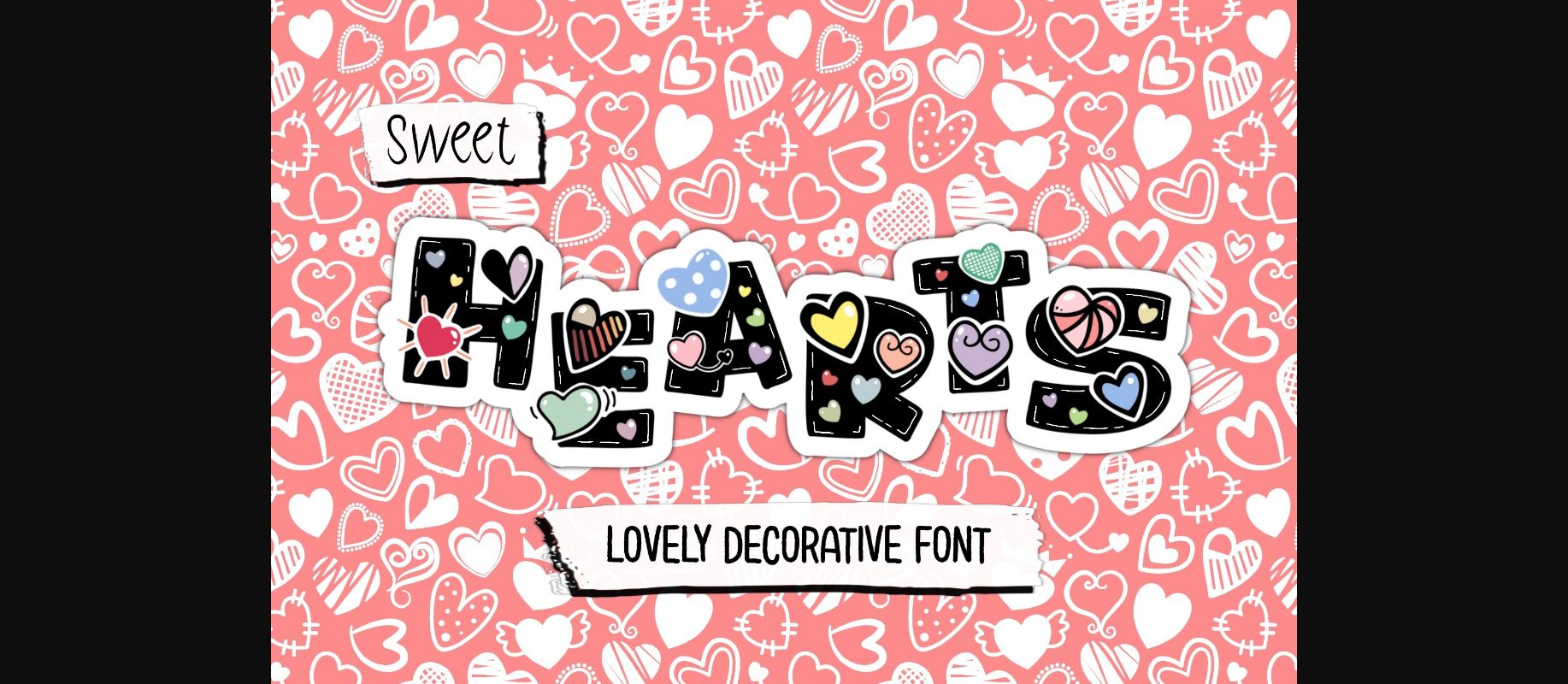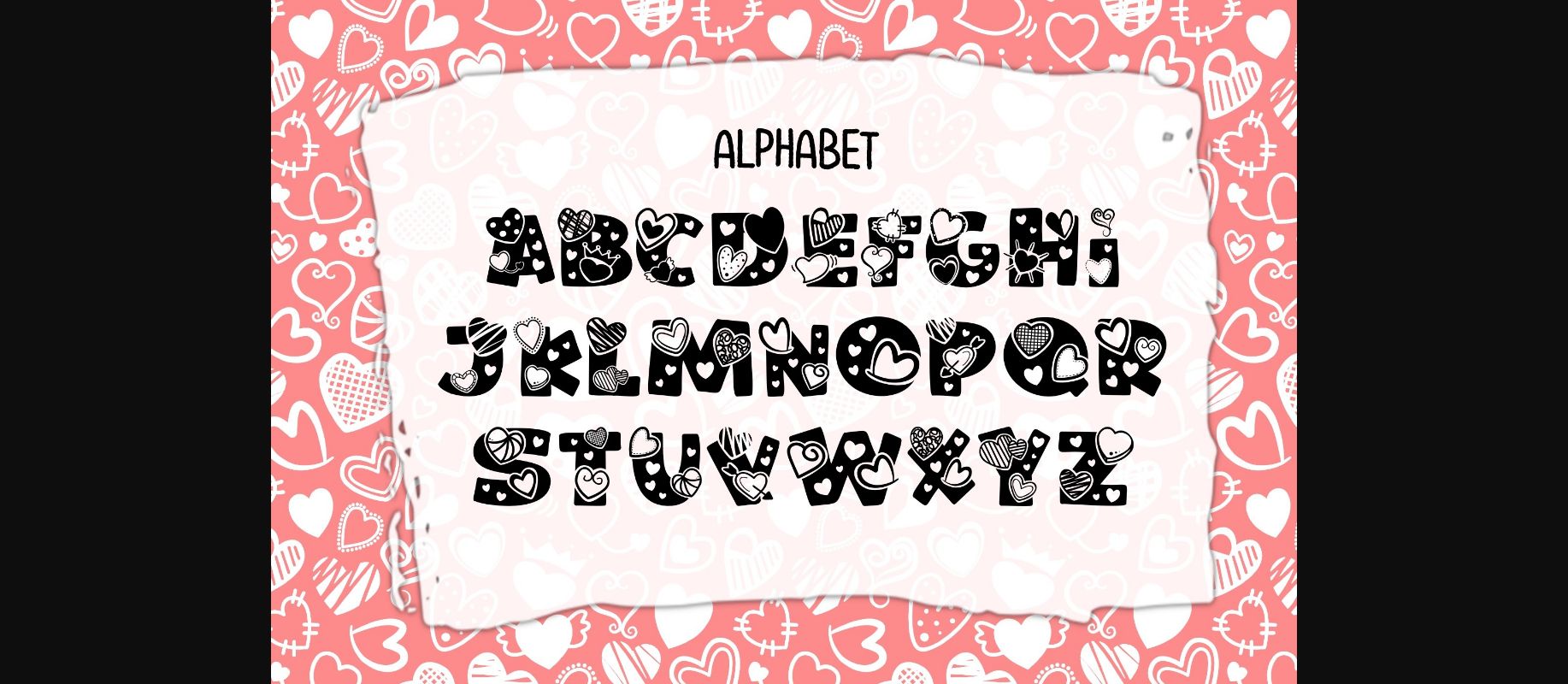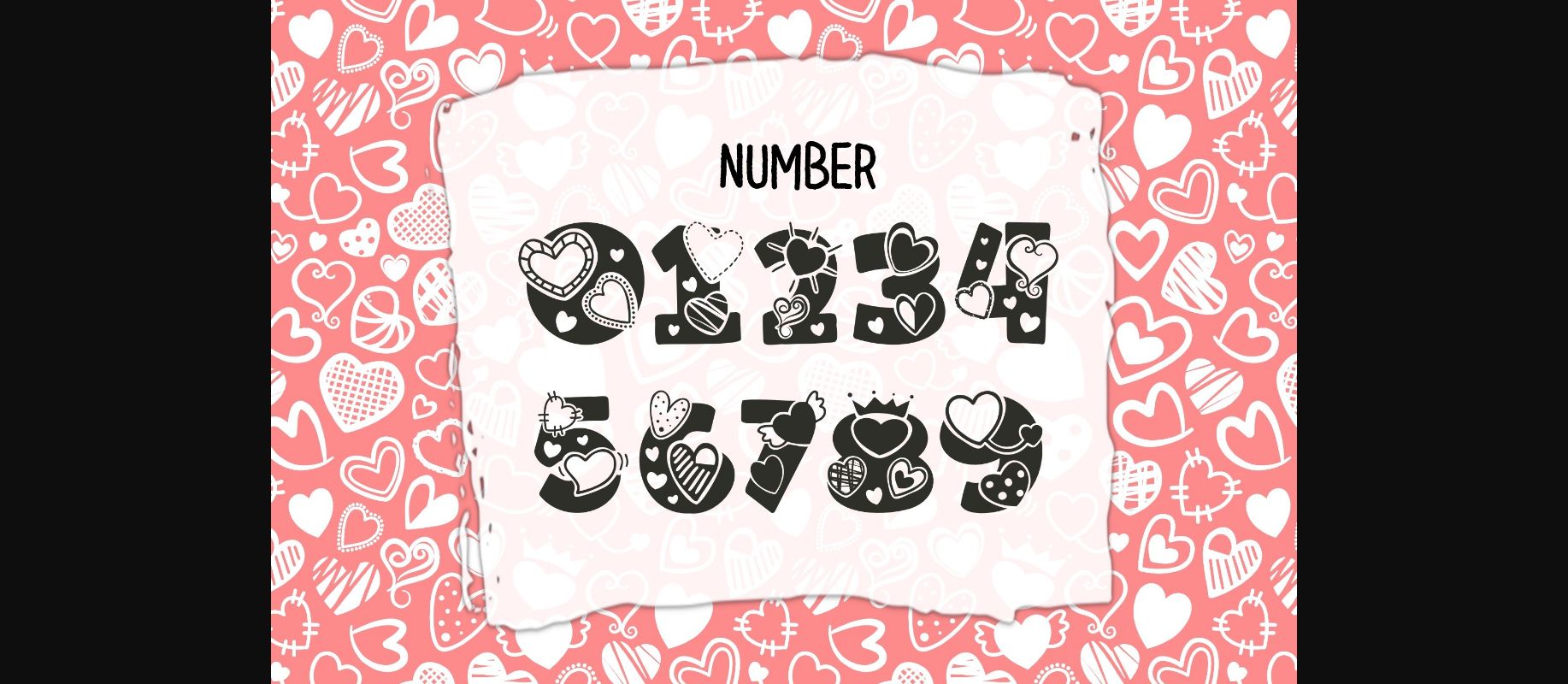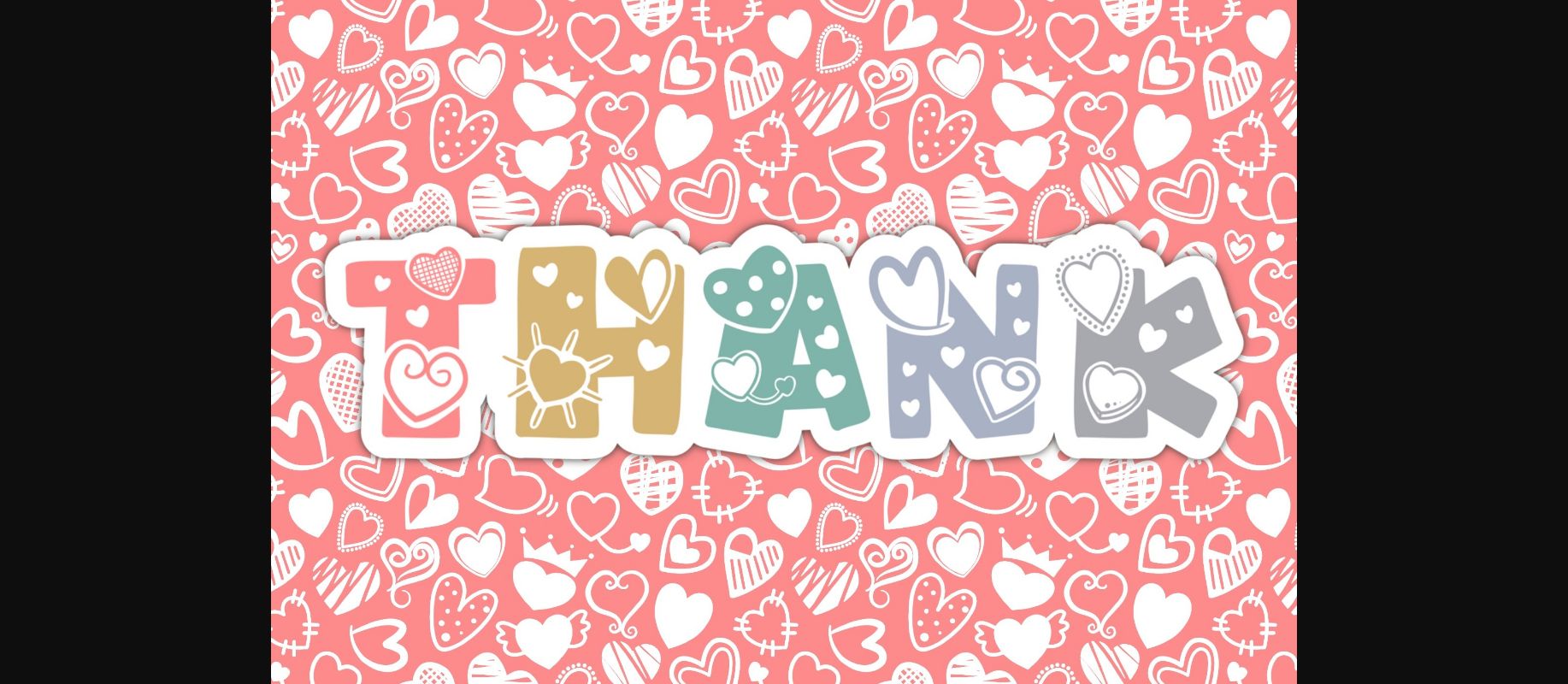
Sweet Hearts Font
About Sweet Hearts Font
Sweet Hearts is a lovely decorative font. This font is perfect for a design that makes it more attractive and playful. Great for valentine’s themed projects, book covers, posters, packaging, merchandise, logotypes, and much more.